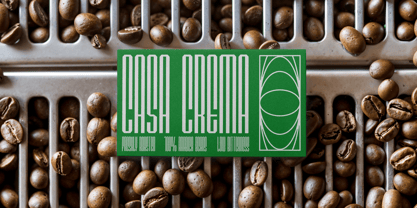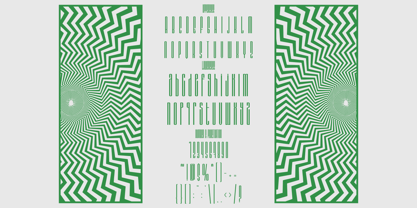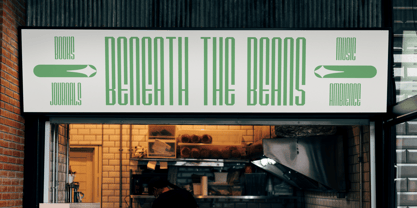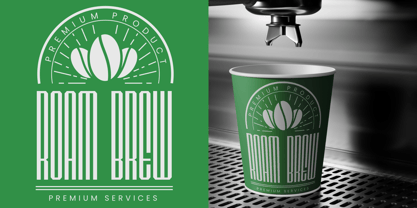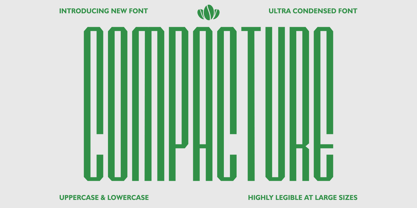
Compacture
by Shanaf
The Compacture Font Family was designed by Yesie Erma Yunita and published by Shanaf. Compacture contains 1 styles. More about this family
Compacture Condensed Font is a bold ultra-condensed typeface designed to command attention with minimal space. Each letterform is tall, narrow, and geometric, giving an elongated structure that maximizes vertical presence while maintaining clear readability. The sharp edges and clean cuts create a professional and modern aesthetic that feels both strong and refined. This condensed design is perfect for logos, posters, editorial layouts, packaging, and branding projects where impact is essential. Its architectural proportions make it stand out in large formats, from signage to book covers, while still offering legibility in smaller applications.
The font offers uppercase and lowercase variations with a consistent vertical rhythm, giving designers versatile options for visual hierarchy. Compacture’s sleek form works beautifully for contemporary branding, fashion labels, coffee shops, or lifestyle businesses that demand stylish yet practical typography. It balances retro poster-style vibes with a clean modern look, making it ideal for minimal packaging or bold artistic compositions. Whether used for logos, business cards, invitations, or magazine covers, Compacture ensures a sharp and memorable visual identity that speaks sophistication and confidence.
Designers: Yesie Erma Yunita
Current Foundry: Shanaf